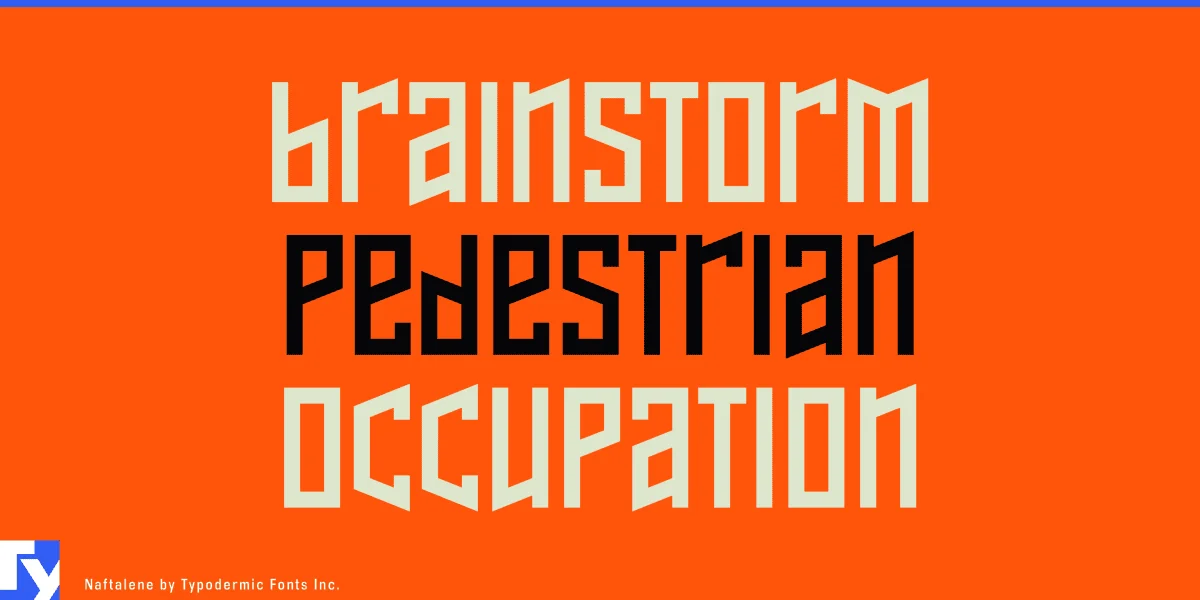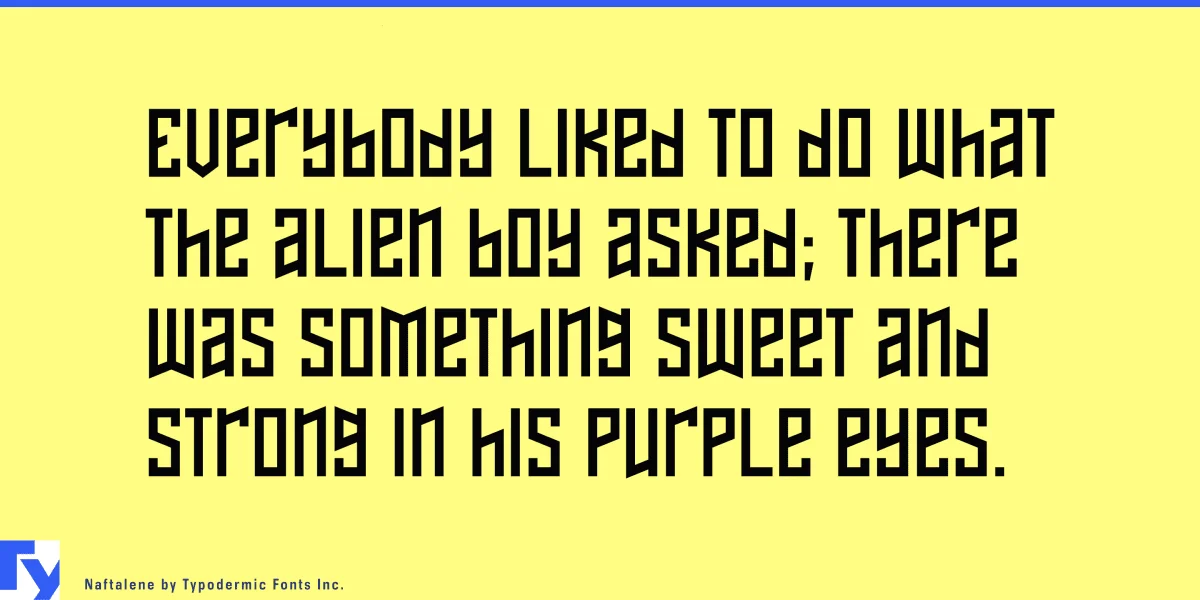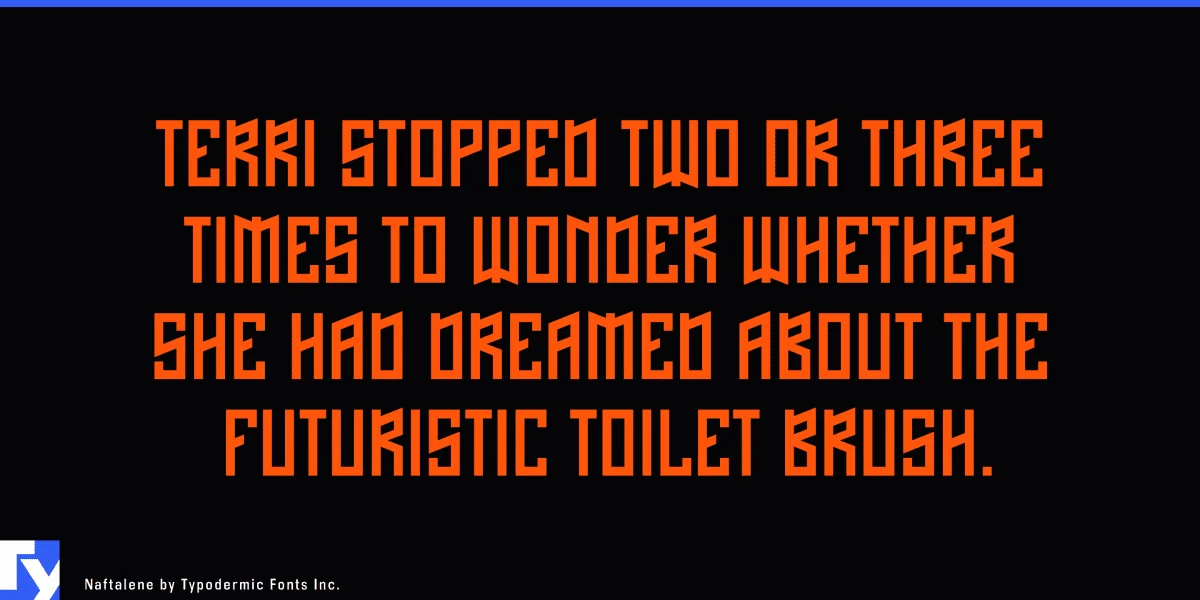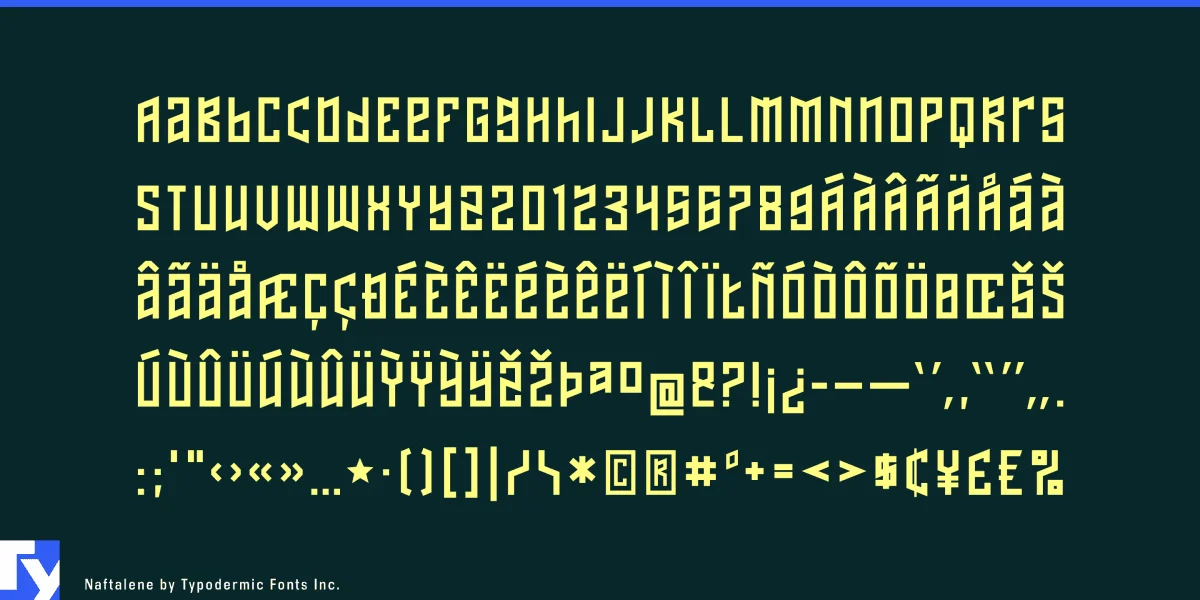
Naftalene is a razor-sharp headline buster. Allow this geometric industrial typeface to add clarity and technological excellence to your message. Some Latin-based European writing systems are supported, including the following languages. Afaan Oromo, Afar, Afrikaans, Albanian, Alsatian, Aymara, Basque, Bemba, Bikol, Breton, Cape Verdean, Creole, Catalan, Cebuano, Chamorro, Chavacano, Danish, Dawan, Dholuo, Dutch, English, Estonian, Faroese, Fijian, Filipino, Finnish, French, Frisian, Friulian, Galician, Genoese, German, Guadeloupean Creole, Haitian Creole, Hiligaynon, Icelandic, Ilocano, Indonesian, Irish, Italian, Jamaican, Kaqchikel, Kikongo, Kinyarwanda, Kirundi, Lombard, Low Saxon, Luxembourgish, Makhuwa, Malay, Ndebele, Neapolitan, Norwegian, Novial, Occitan, Papiamento, Piedmontese, Portuguese, Quechua, Rarotongan, Romansh, Sango, Saramaccan, Sardinian, Scottish Gaelic, Shona, Sicilian, Silesian, Slovak, Slovenian, Somali, Sotho, Spanish, Swahili, Swazi, Swedish, Tagalog, Tetum, Tshiluba, Tsonga, Tswana, Tumbuka, Uzbek (Latin), Venetian, Võro, Walloon, Waray-Waray, Wayuu, Xhosa, Yapese, Zapotec Zulu and Zuni.